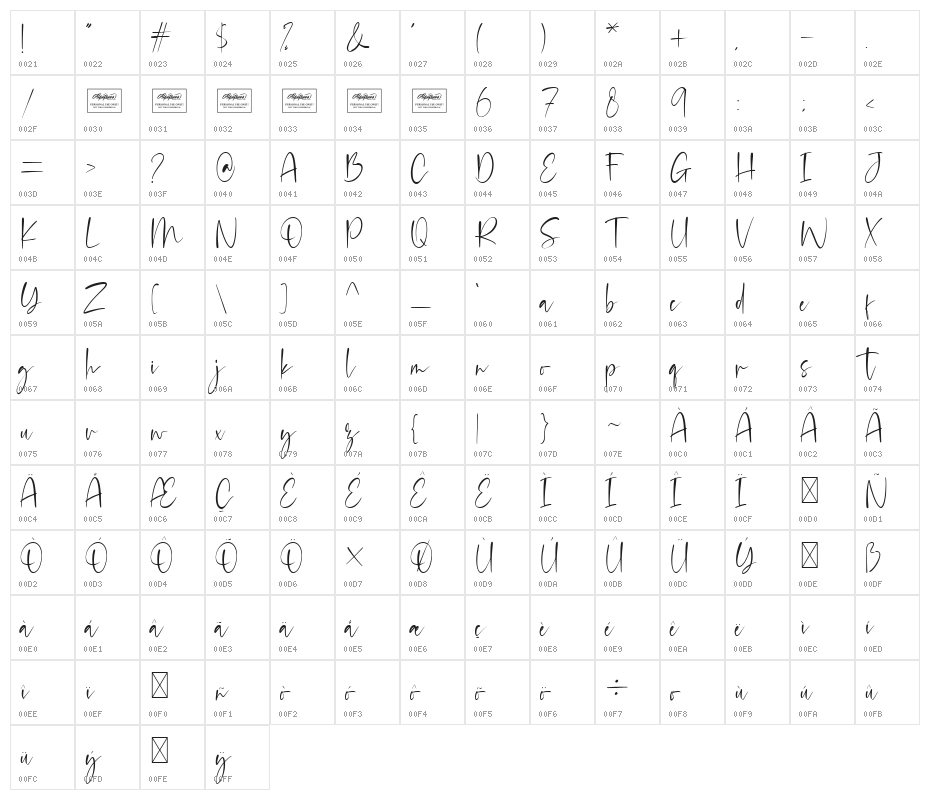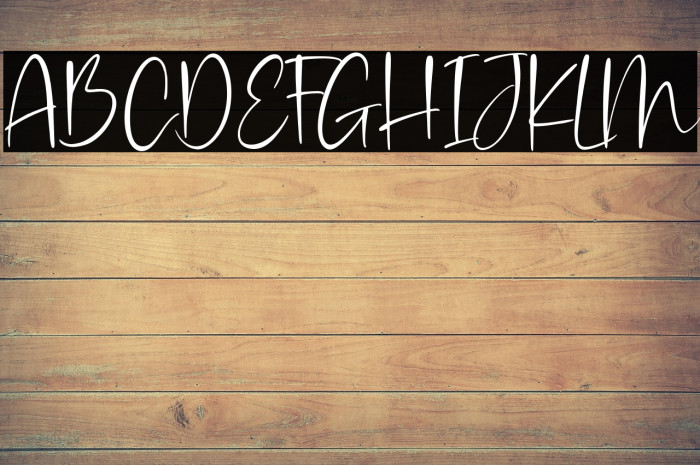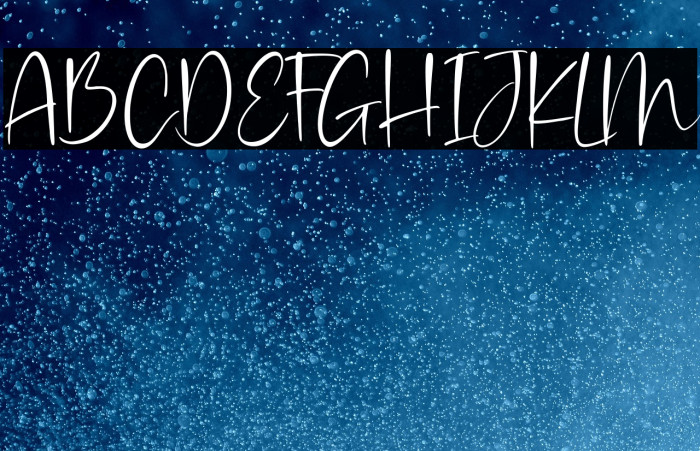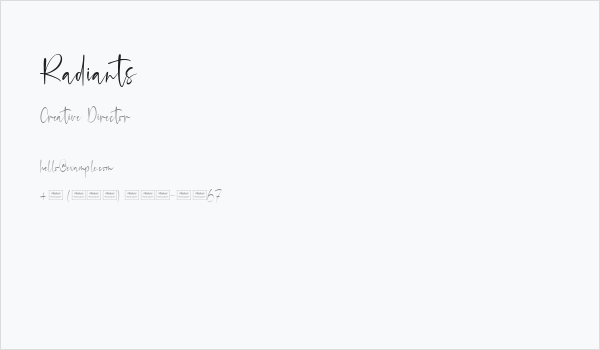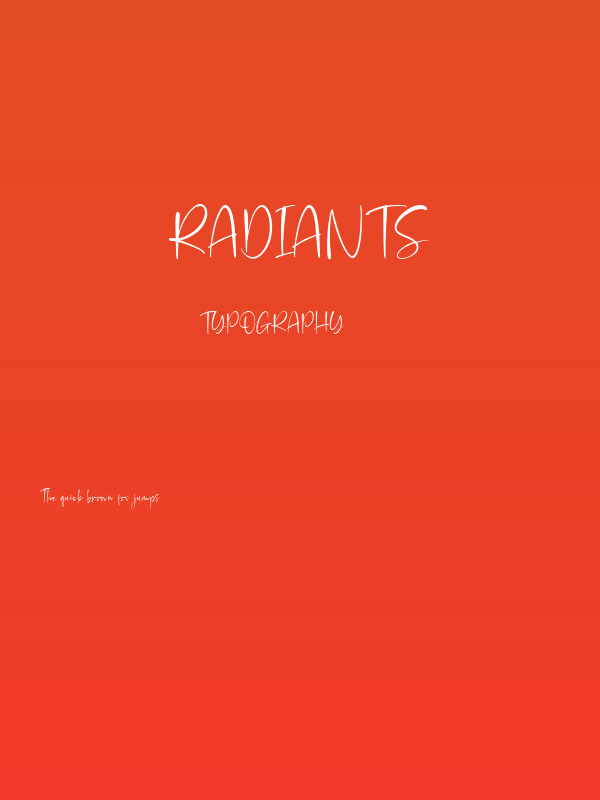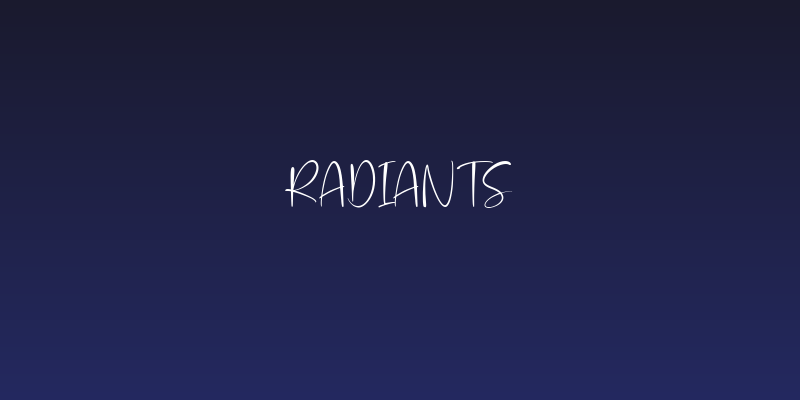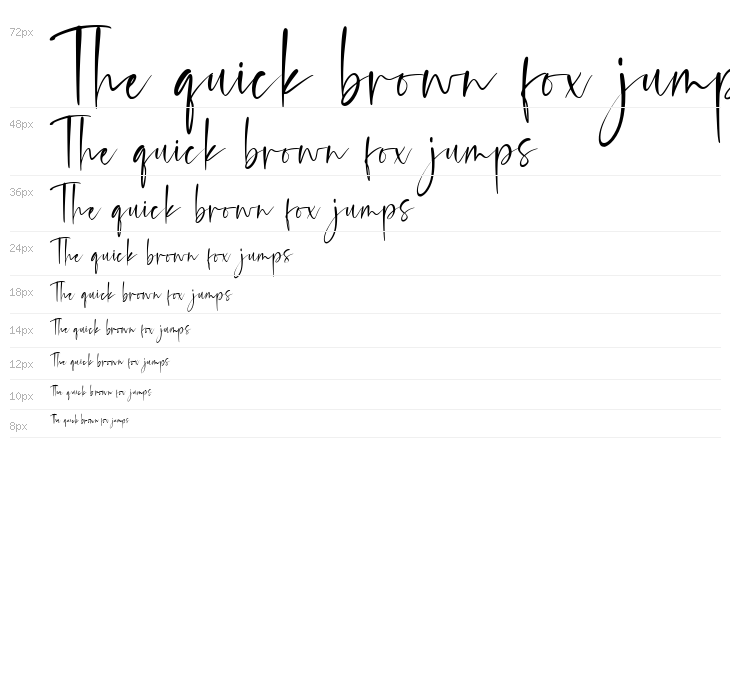
Radiants Font
Radiants Description
This font features a lively and flowing handwritten style, characterized by its elegant and fluid strokes. The uppercase letters are bold and expressive, with a slight slant that adds a dynamic feel. The lowercase letters maintain a consistent flow, enhancing the font's overall cohesiveness. Numbers and special characters are crafted with the same attention to detail, ensuring versatility across various uses. The font's design captures a sense of movement and spontaneity, making it ideal for projects that require a personal and artistic touch.